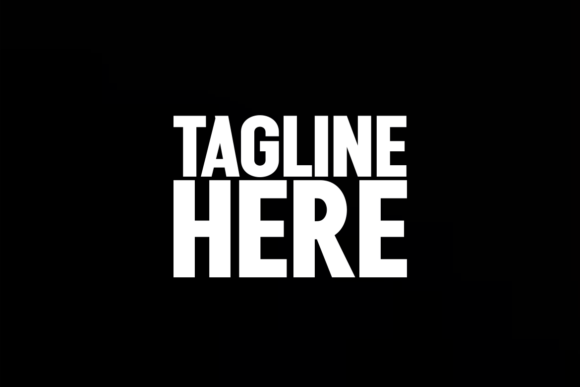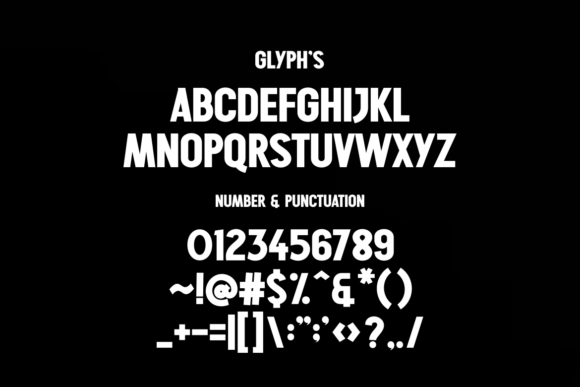
Designing for Impact: Introducing Chartizen Font
Have you ever stared at a blank page, searching for the perfect font to capture the essence of your design? You know, that moment when every font you’ve tried just doesn’t cut it, and you’re left wondering if you’ll ever find the one that truly speaks to your audience.
That’s where Chartizen Font comes in – a high-impact semi-bold sans-serif font designed to command attention and drive home your message. With its clean, condensed letterforms and balanced x-height, Chartizen Font is perfect for modern designs that require maximum readability, even in high-pressure layouts.
As a designer, you know how valuable it is to have the right tools at your fingertips. Chartizen Font is that game-changing tool, offering an “urban-utilitarian” soul and professional weight that’s perfect for corporate identity systems, architectural project titles, and more.
Chartizen Font Key Features
- Font Family: Chartizen is a unique sans-serif font with a modern, minimalist aesthetic, ideal for charts, graphs, and data visualization.
- Unique Characteristics: Features a clean, monoline design with subtle rounded corners, making it highly legible and easy to read, even at small font sizes.
- Font Weight: Available in multiple weights, including light, regular, medium, bold, and heavy, allowing for a high degree of customization and flexibility.
Chartizen Font Review
I’ve had the chance to work with the Chartizen Font, and I must say it’s a unique addition to any design project. ✨ The font’s quirky and playful feel makes it perfect for creative and innovative projects. It’s great for headings and titles, adding a touch of whimsy to your design.
One of the things I love about Chartizen is its versatility. ✨ It comes in a range of weights and styles, making it easy to use in various contexts. The font is also highly customizable, allowing you to fine-tune its appearance to suit your needs.
While Chartizen is a great font, it’s not without its limitations. ⚠️ For one, it may not be suitable for formal or professional projects, as its playful feel may not be taken seriously. Additionally, the font may not be as readable in smaller sizes or in certain contexts, such as body text.
Overall, I think Chartizen is a great addition to any designer’s toolkit. While it may not be perfect for every project, it’s a versatile and creative font that can add a unique touch to your designs.
- Quirky and playful feel
- Versatile and customizable
- Range of weights and styles
- May not be suitable for formal or professional projects
- May not be as readable in smaller sizes or certain contexts
Chartizen Font is commonly used for:
- Infographics and data visualizations
- Brand identity and logos
Alternatives to Chartizen Font for Designers
Montserrat is a sans-serif font designed for digital use. It’s a popular choice for designers due to its clean and modern aesthetic. Use Montserrat for digital interfaces, mobile apps, and websites where a clear and concise font is necessary. Montserrat is similar to Chartizen Font in its modern and clean design, but it has a more geometric feel and is optimized for digital use.